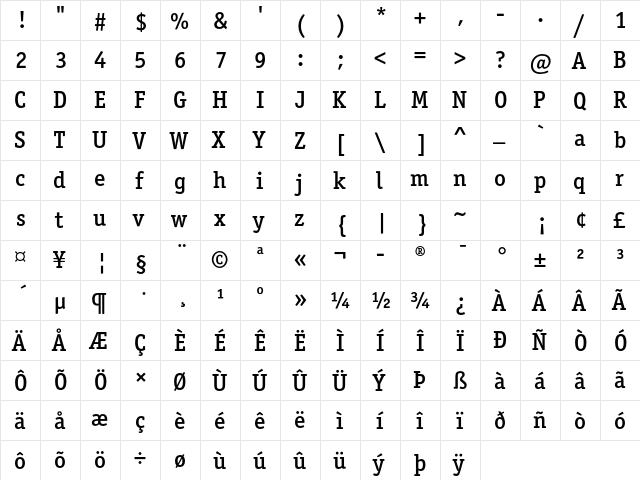
OfficinaSerITCStd Medium Font Preview
OfficinaSerITCStd Medium
OfficinaSerITCStd Medium Font Details
| Designer | Erik Spiekermann and Ole Schaefer |
Design Context for OfficinaSerITCStd Typeface
OfficinaSerITCStd takes a measured approach to typography — its balanced proportions and neutral character make it a reliable workhorse for both digital and print work.